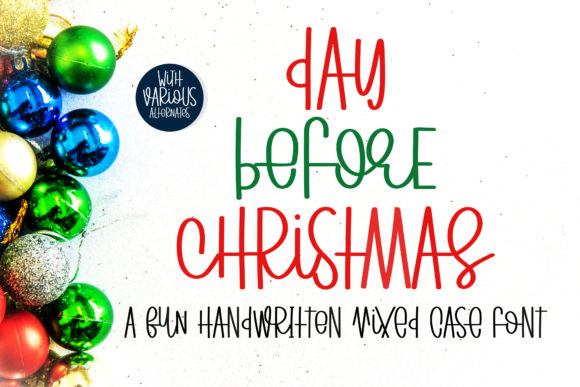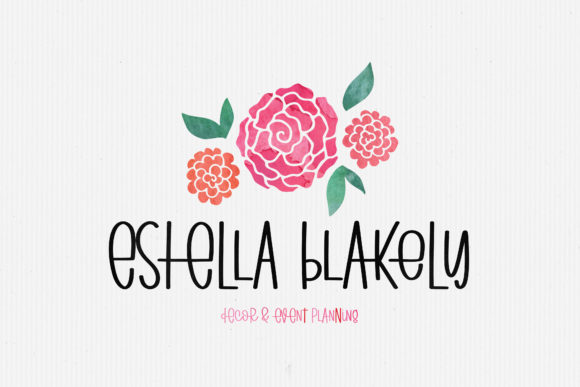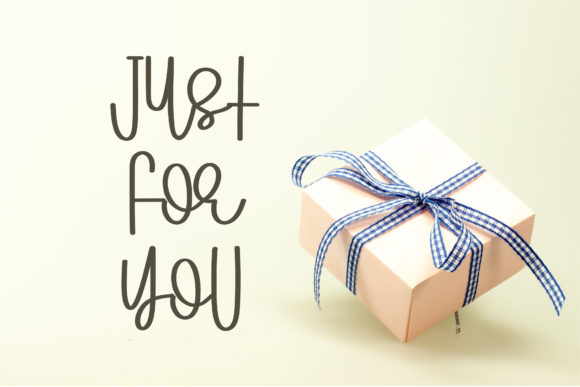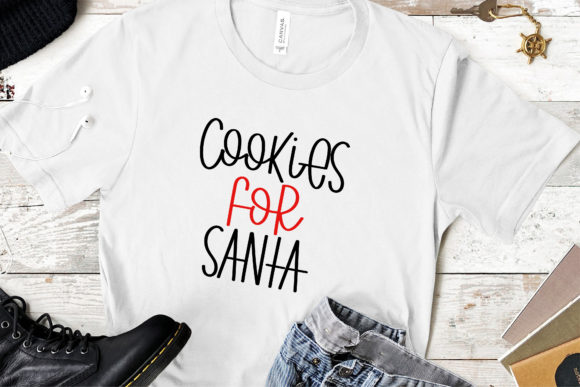
Day Before Christmas Font
Day Before Christmas is a sweet and quirky handwritten font. Its friendly feel makes this font incredibly versatile, fitting a wide range of contexts. Add it to your creative ideas and notice how it makes them stand out!